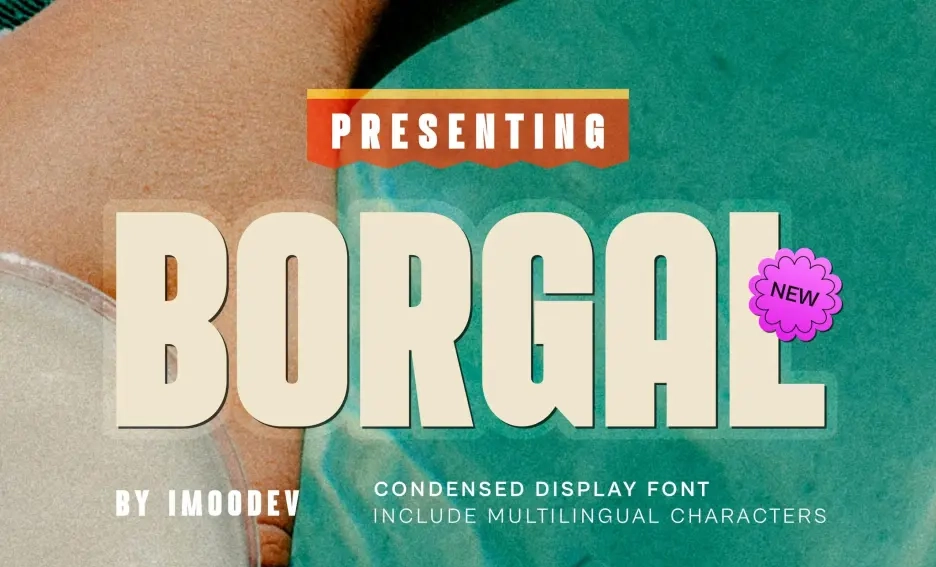
Borgal – Modern Minimal Font 4Lgejqr
Borgal is a modern minimal font designed for versatility and elegance. With its clean lines and contemporary aesthetic, this typeface is perfect for a variety of applications, including branding, logos, web design, and print materials.
• Stylish and modern design
• Multiple weights for diverse usage
• Easy to read at various sizes
Utilize Borgal for clean and modern branding, eye-catching web typography, or striking print designs. Its minimalistic style ensures it complements any project without overwhelming the viewer.